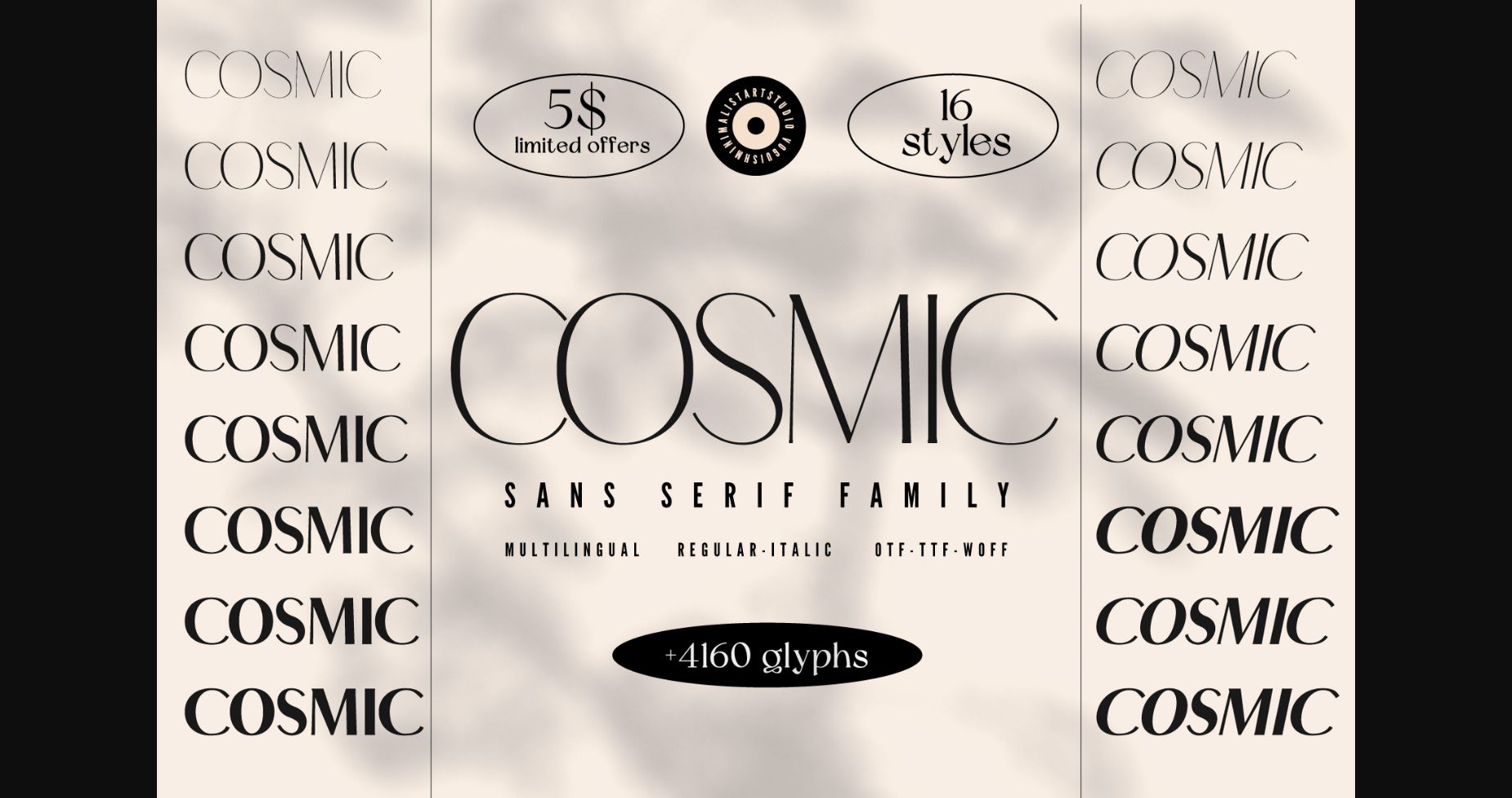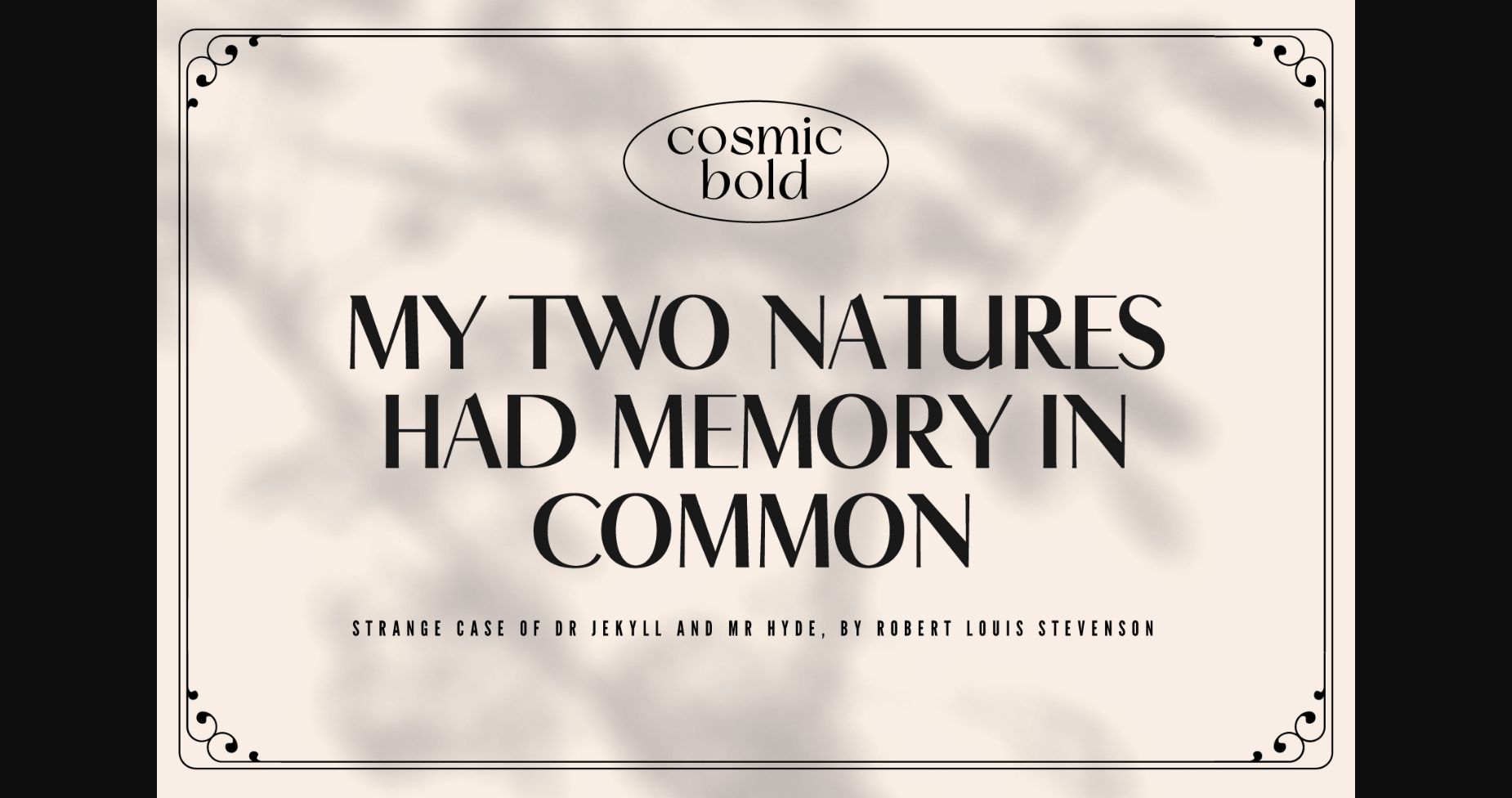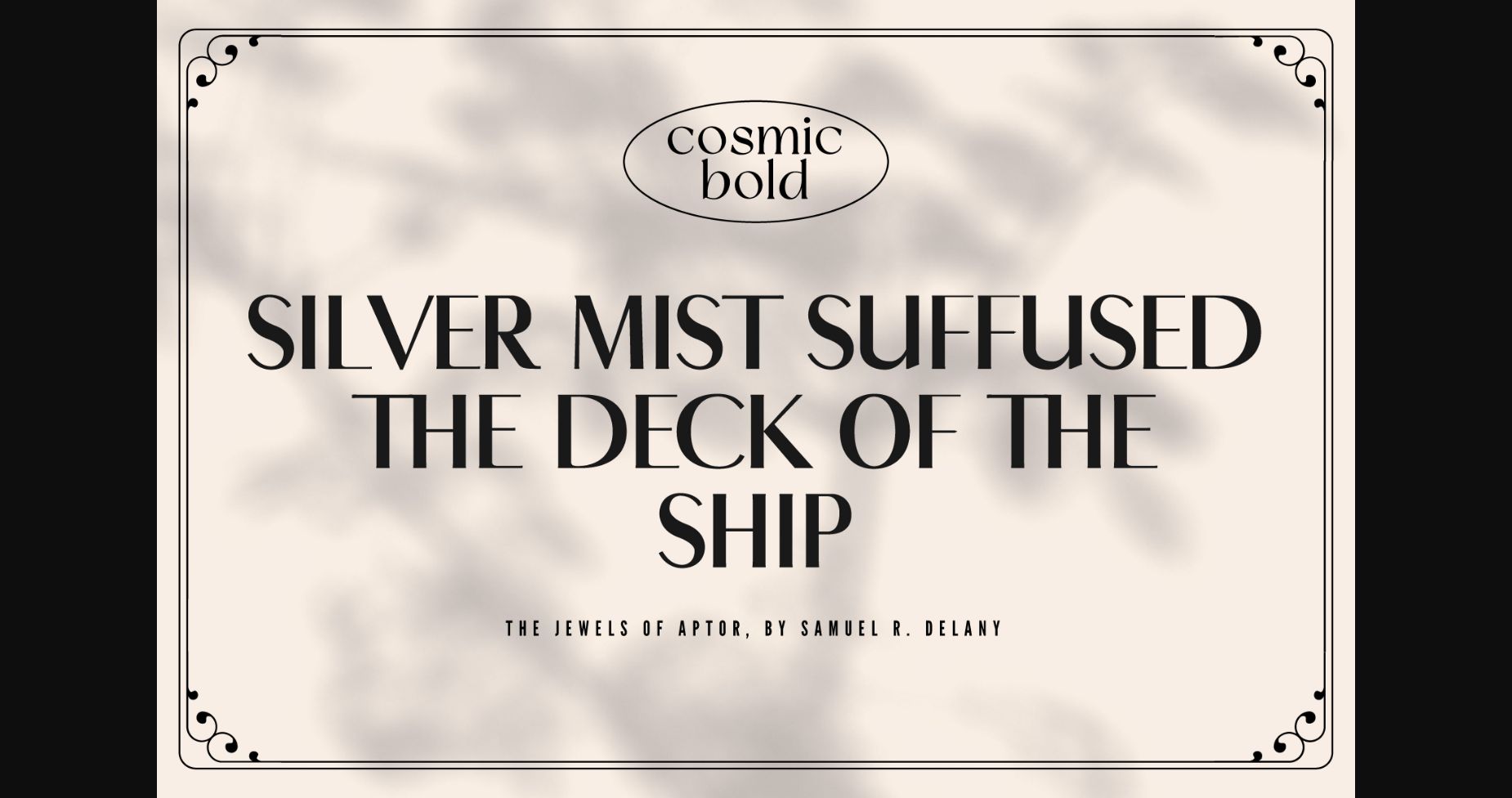
About Cosmic Font
Cosmic is an elegant and chic minimalist serif font family, the perfect solution for all your design needs. The minimalist serif style is clean and modern, and the unique styles of each font allow you to experiment and find the perfect match for your project. Whether you’re creating a new product or revamping an existing brand, this font family has everything you need to take your design to the next level.